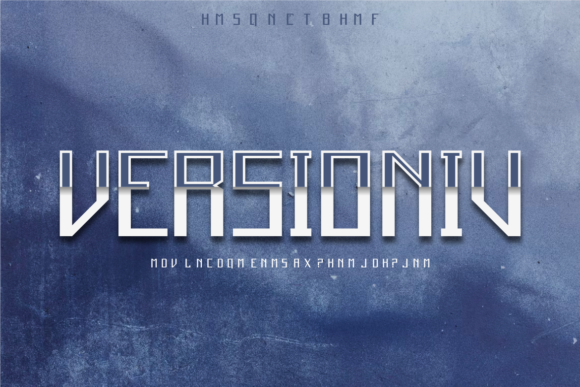
Journey into the Realm of Versioniv: A Typographic Masterpiece
In the realm of visual communication, where words dance and ideas take form, there exists a font that captivates and commands attention like no other. Meet Versioniv, a display font that transcends the ordinary, inviting you to embark on a typographic adventure like never before.
With its bold and thick letters that exude a sense of strength and confidence, Versioniv is a font that demands to be seen. Its clean lines and sharp angles create a visual impact that cuts through the clutter, ensuring that your designs stand out from the crowd.
Born from the creative mind of alonkelakon, a renowned font designer, Versioniv is a font that has been meticulously crafted to deliver both visual appeal and functionality. Its unique letterforms are designed to create maximum impact in a variety of applications, from logos and branding to t-shirt printing and sports designs.
Step into the spotlight with Versioniv and unleash your creativity. Whether you're a seasoned designer seeking to elevate your projects or an aspiring entrepreneur looking to make a lasting impression, this font has the power to transform your ideas into captivating visuals.
Immerse yourself in the world of Versioniv and discover a font that truly captivates. Its versatility knows no bounds, allowing you to create designs that speak directly to your audience, leaving an unforgettable mark on their minds.